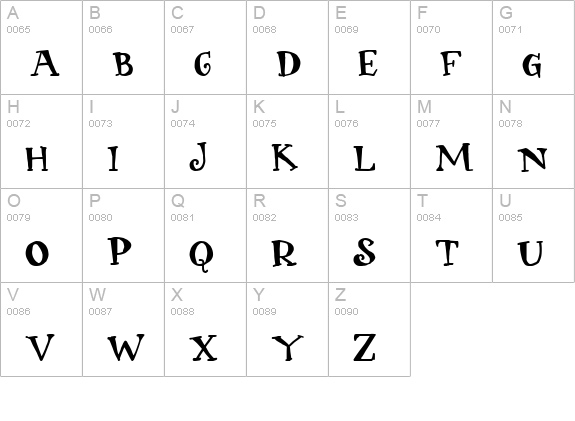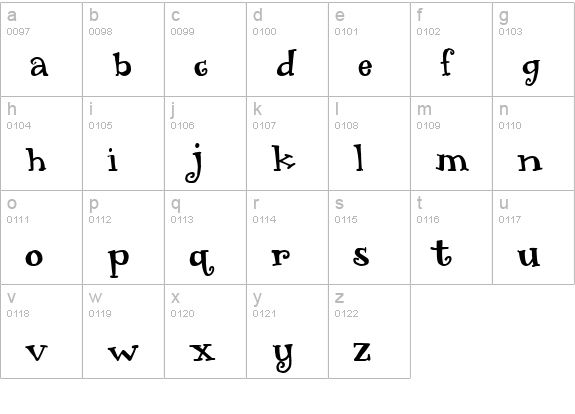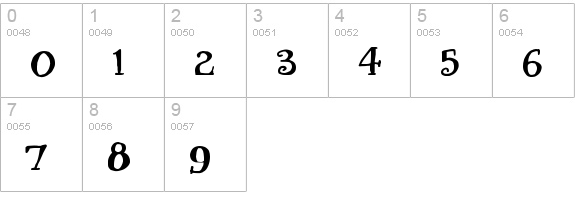
CK Summer Font Details
Introducing CK Summer Font - a versatile and modern typeface that exudes elegance and sophistication. With its sleek lines and stylish curves, CK Summer is perfect for a wide range of design projects, from branding to packaging to social media graphics. This font is the perfect choice for those looking to add a touch of sophistication to their designs. What sets CK Summer apart is not only its stunning visual appeal but also the fact that it is available for free download at FontsMarket.com. This means that you can easily access this high-quality font without any cost, making it a valuable addition to your font library. Don't miss out on the opportunity to elevate your designs with the timeless beauty of CK Summer Font. Download it today and see the difference it can make in your projects!